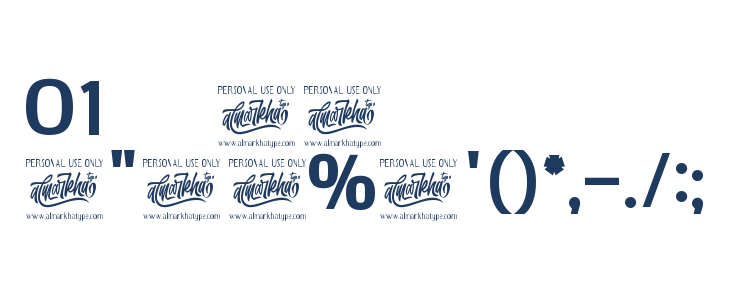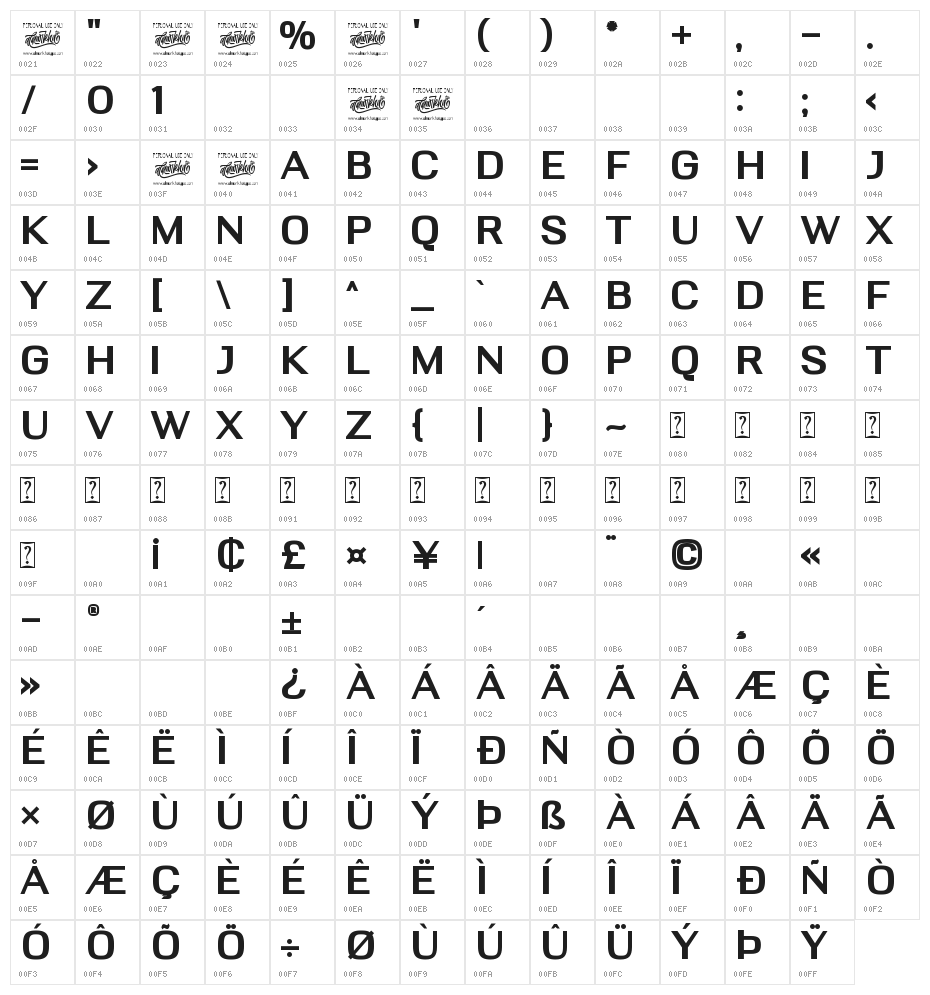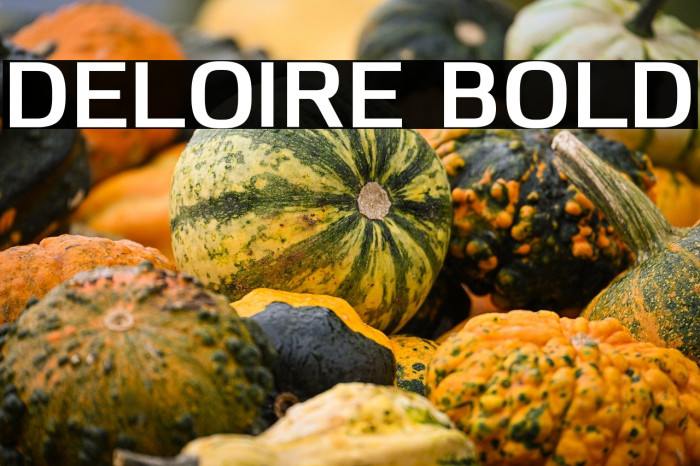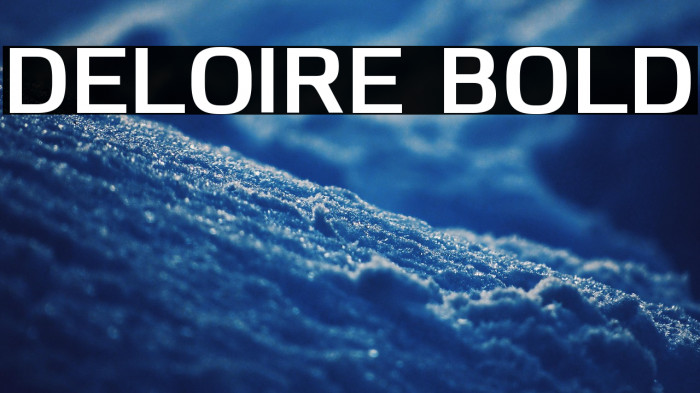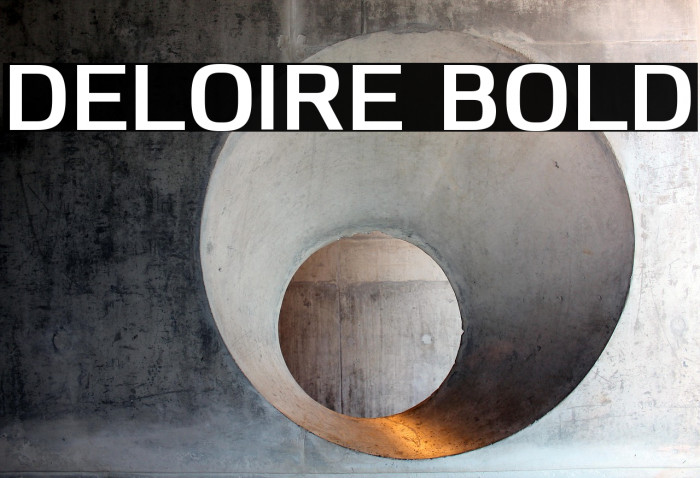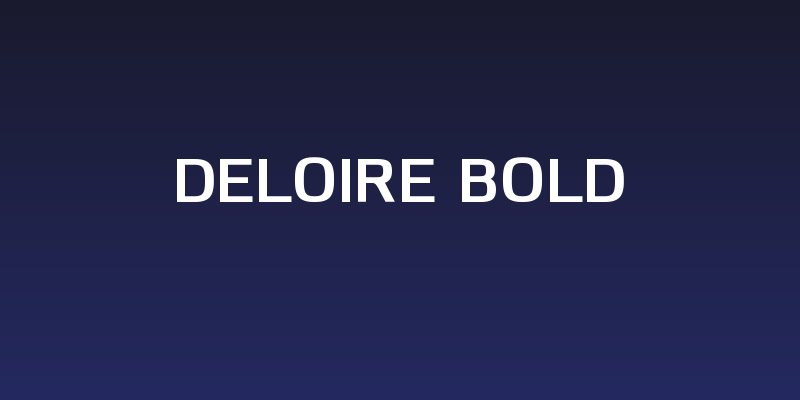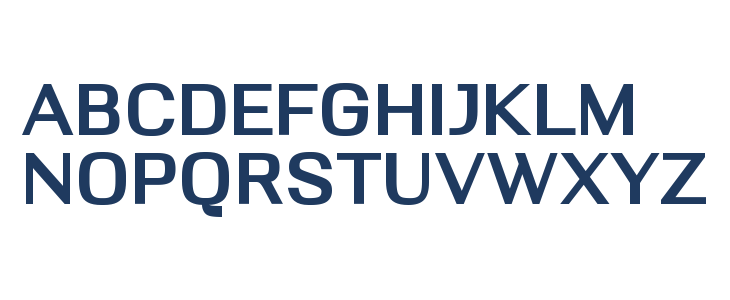
Deloire Bold Font
Deloire Bold Description
This font exhibits a bold and modern sans-serif style, characterized by clean lines and a strong presence. The uppercase letters are uniform in height, with a geometric structure that enhances readability. The lowercase letters maintain a consistent style, ensuring a cohesive look across different text sizes. The numerals are clear and distinct, making them suitable for various applications. Special characters are well-defined, adding versatility to the font's usage. Overall, this font's boldness and clarity make it ideal for impactful designs.
| Use Case | Headlines, Logos, Advertising |
| Proposed Projects | Ideal for branding, advertising, headlines, and digital media where a strong visual impact is needed. |